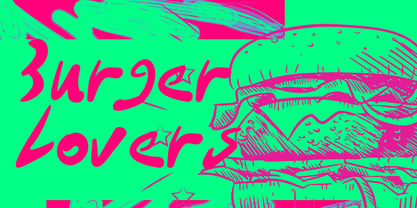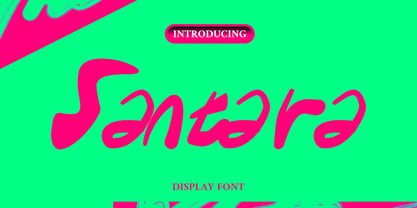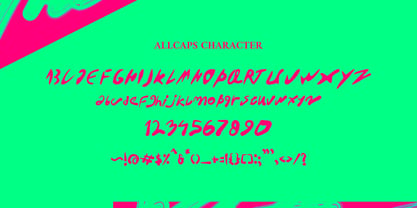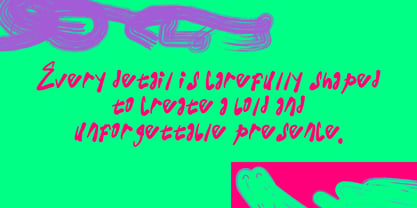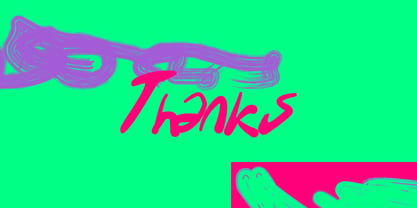
Santara
by Mei Suseno
This font comes with a bold brush handwritten style that delivers a strong energetic and modern visual impact. The smooth freestyle strokes and dynamic letter shapes create a stylish urban look filled with creativity and confidence. Its handcrafted brush texture gives the font a natural and expressive personality, making every word feel lively and eye-catching.
Perfect for streetwear branding, fashion designs, music posters, album covers, social media graphics, logos, and creative projects, this typeface brings a fresh youthful vibe with an edgy artistic touch. Designed to stand out, the font works beautifully for headlines and display text that need a bold and impactful appearance.